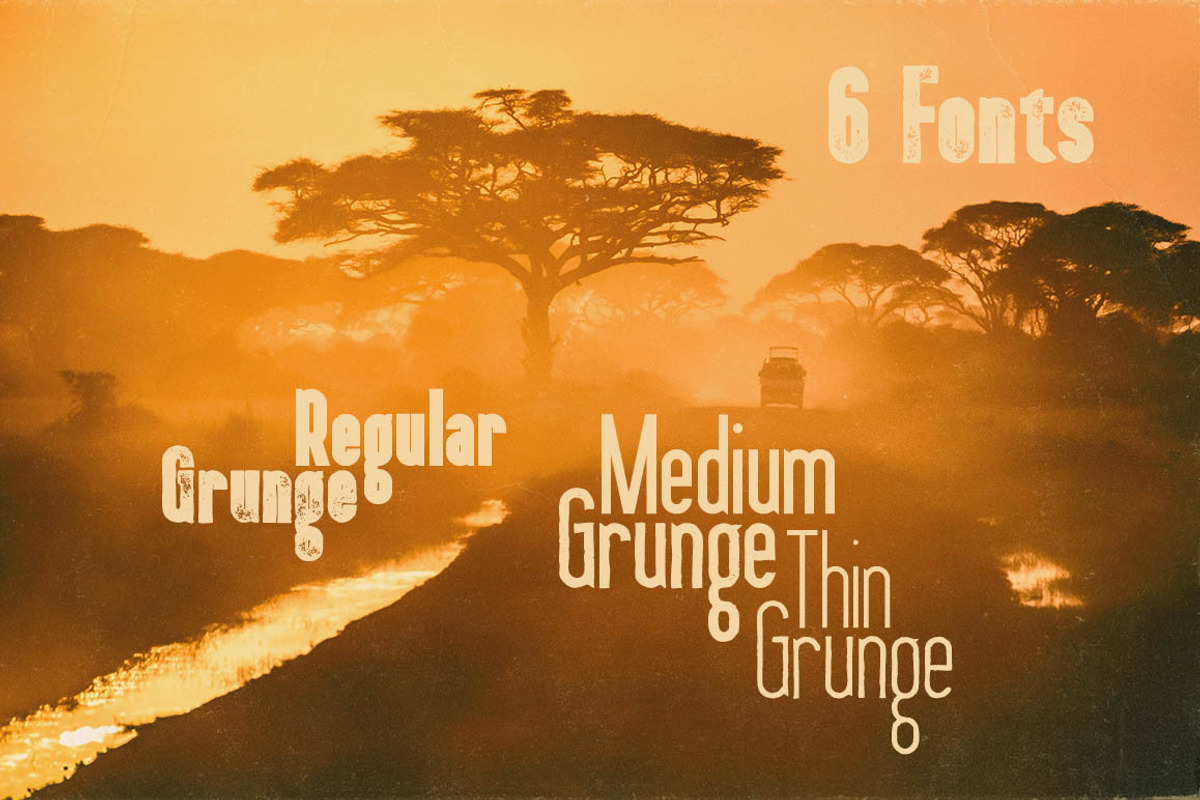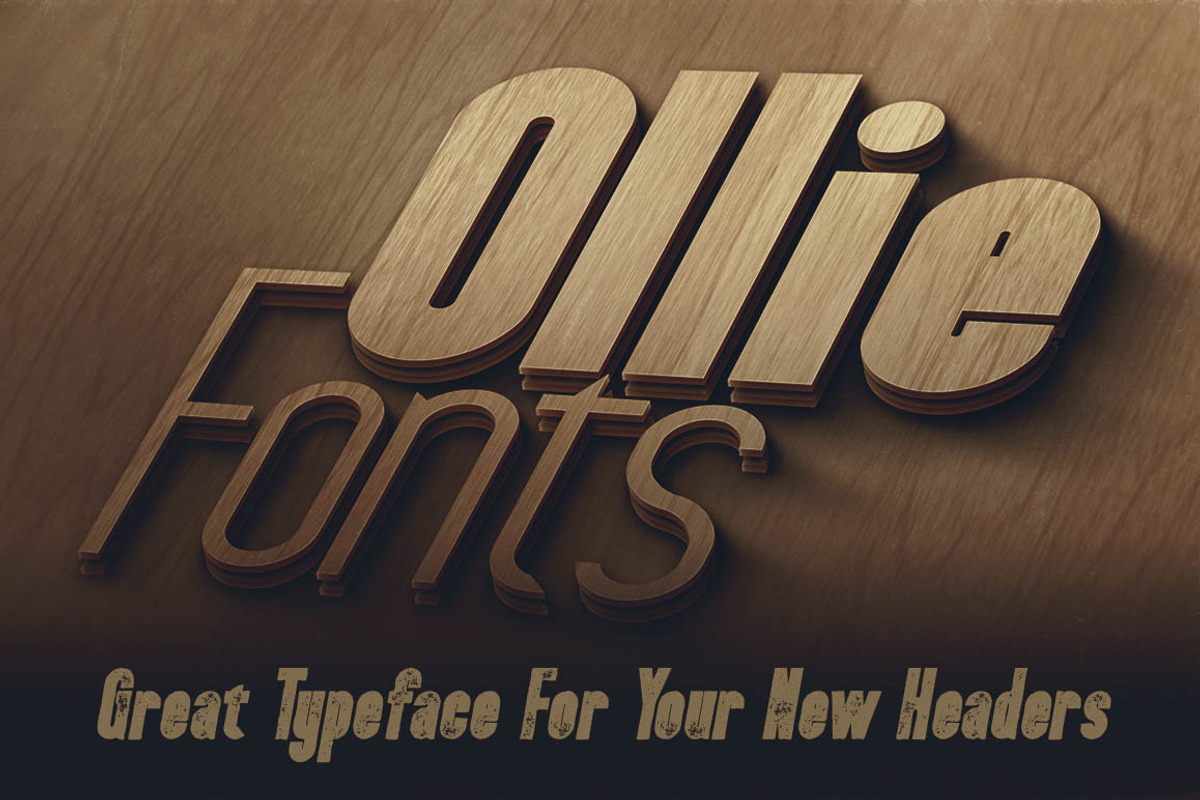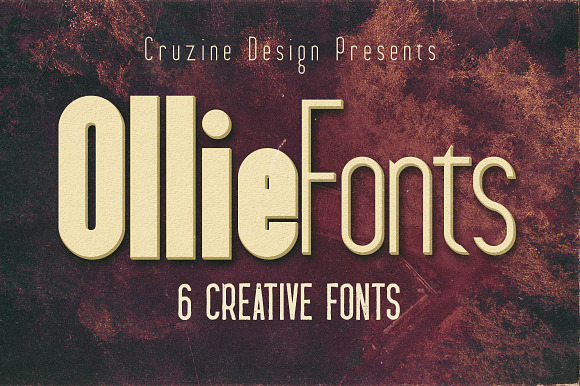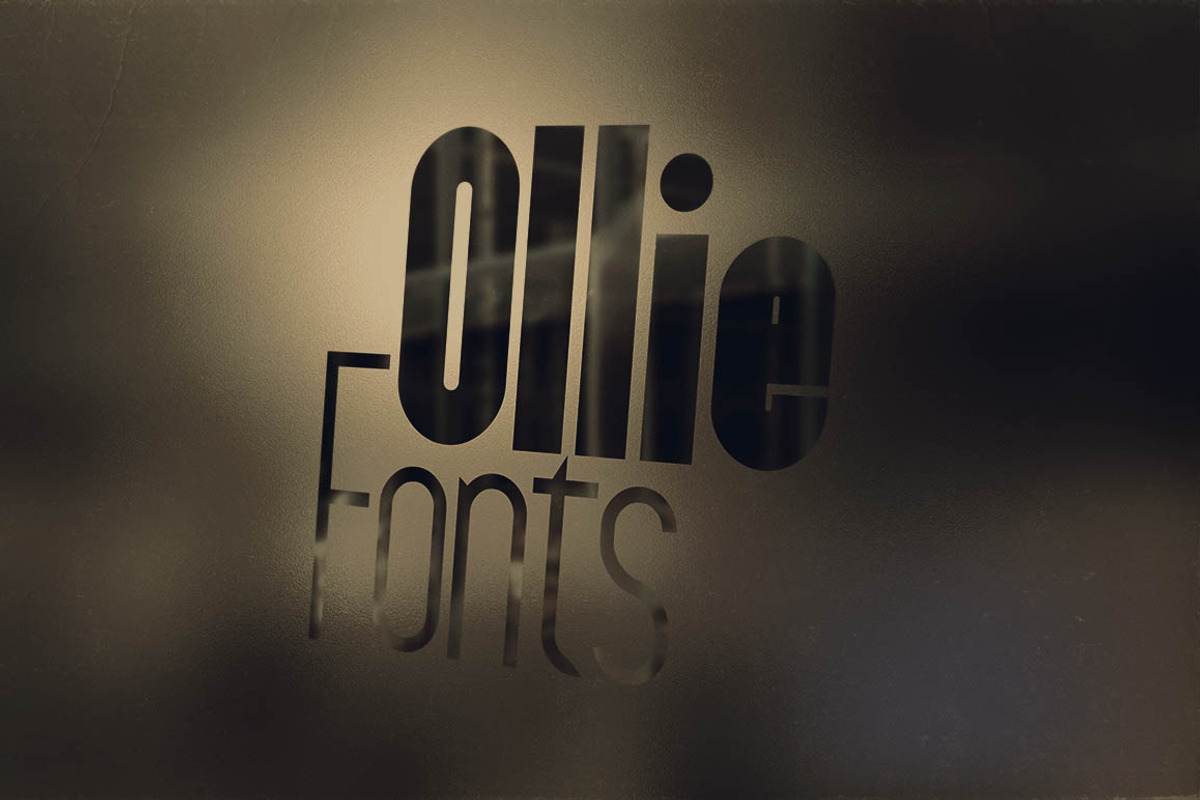
Ollie Typeface
Creative style display font for your new projects. Great for grunge/retro/vintage projects!
Why Ollie Typeface is worth a look
Ollie Typeface by Cruzine fits naturally into Branding, posters, packaging, typography.